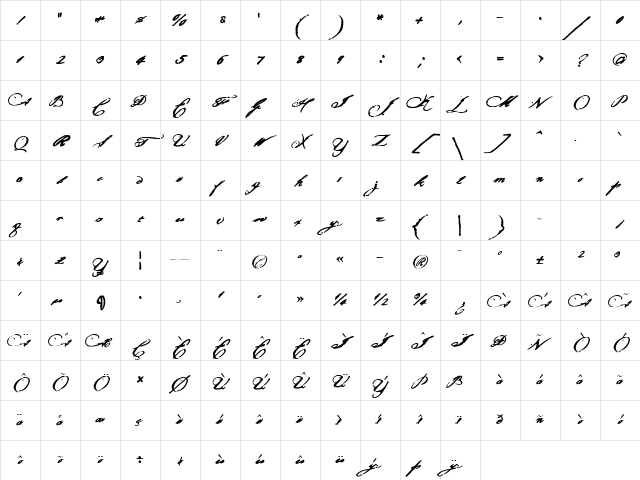
Complete Article10 Bold glyph index. Displaying only characters natively supported by Article10 Bold font.
Article10 is a composed and adaptable typeface that performs quietly and consistently across a wide range of design contexts. Its bold stroke weight gives it real presence on the page.